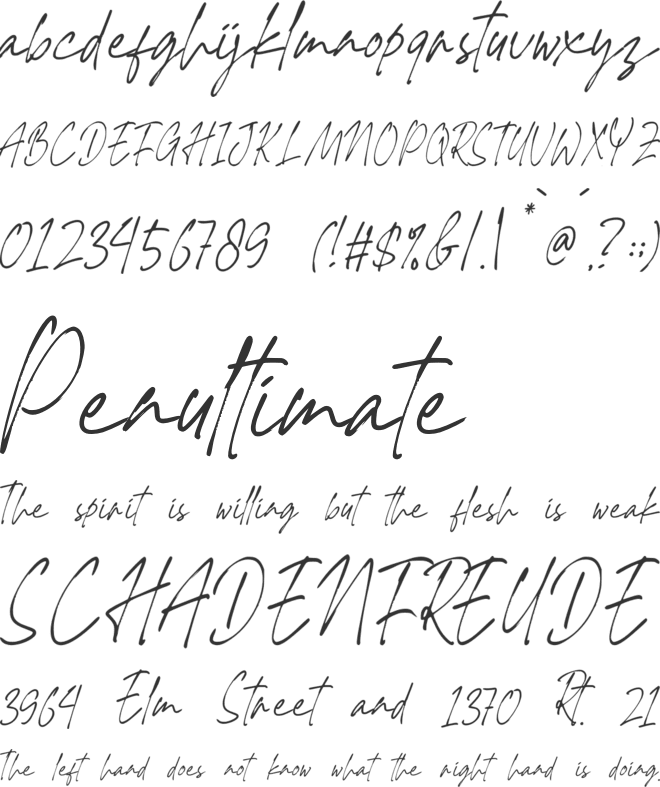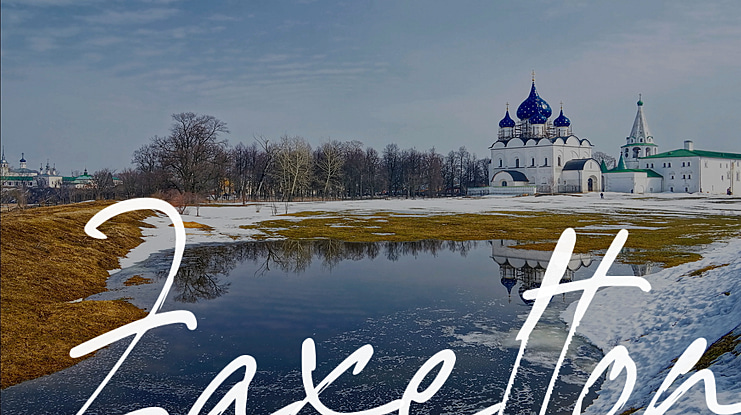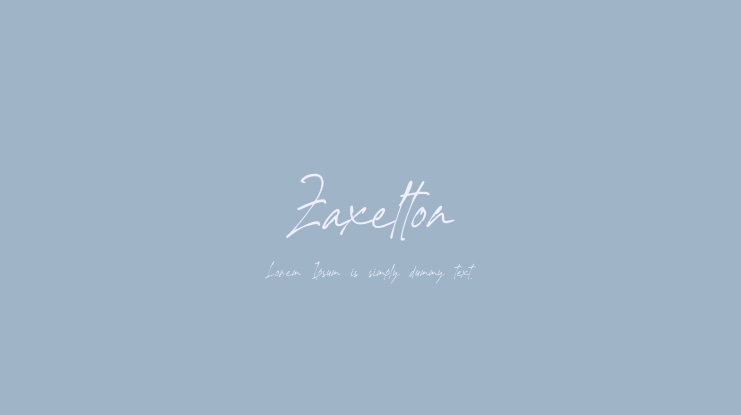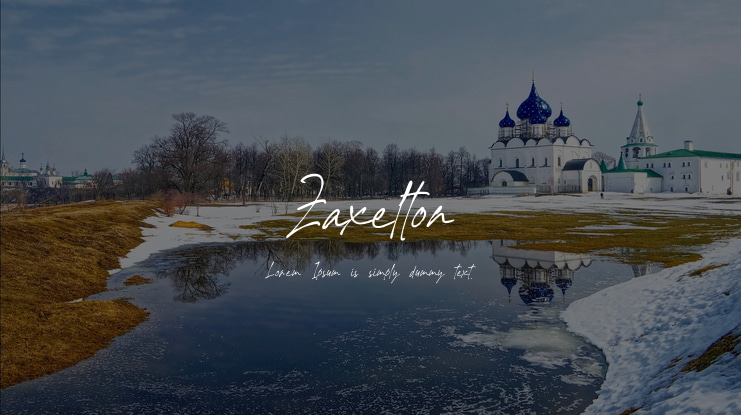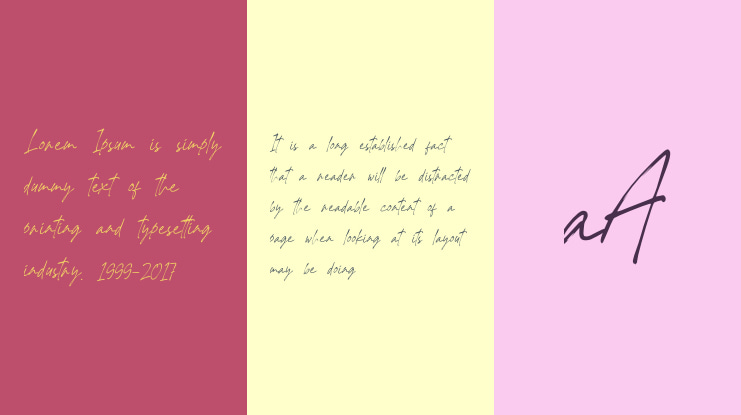
Zaxelton Font
Zaxelton is a beautiful brush signature font. It features a very modern style, while still maintaining a friendly feel. Use it to bring any DIY project to life!